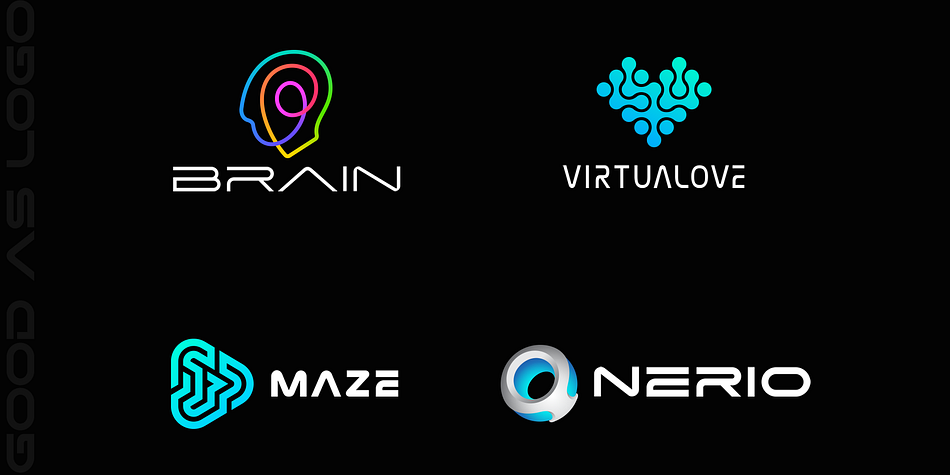
Nevia
Nevia is a sans serif font family. This typeface has eleven styles and was published by Sentavio.
Nevia is Variable Font creates modern futuristic hi-tech atmosphere and style.
Variable Controls are: Weight and Width.
It is created basing on Font Family of 10 styles (Light, Bold, Condensed, Expanded etc.) which allows Nevia looks good as Headline and as Text both.